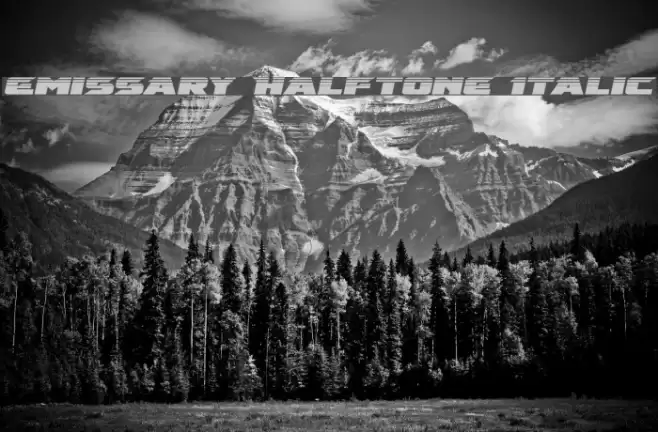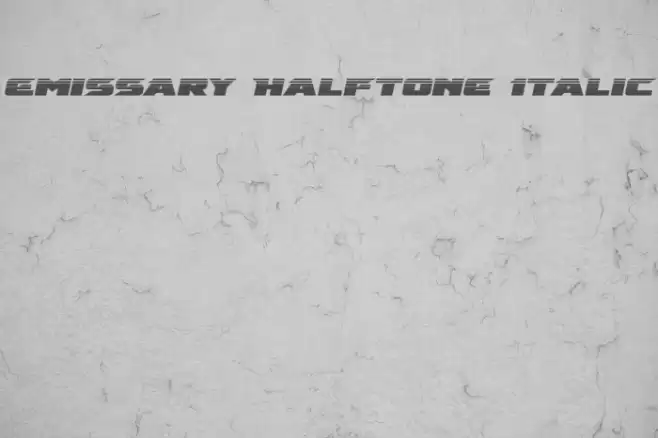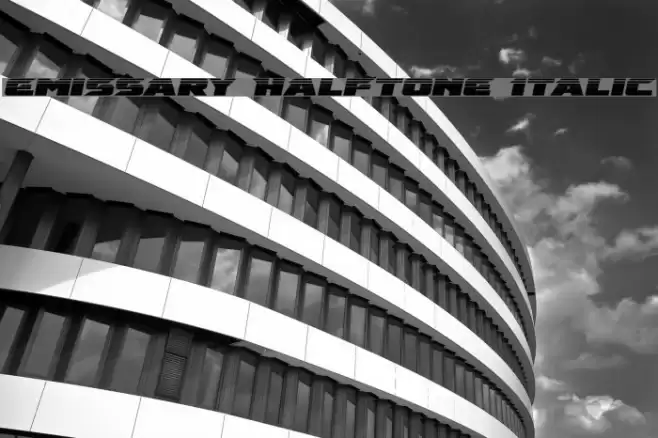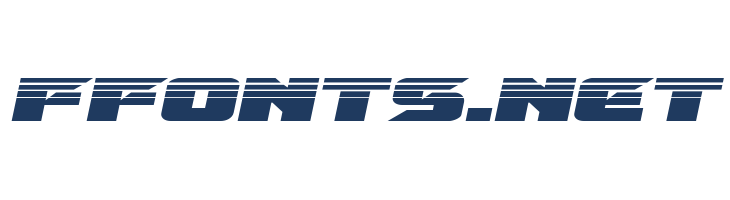
Emissary Halftone Italic Font
Emissary Halftone Italic Description
This font features a bold, dynamic style with a halftone effect that gives it a futuristic and edgy appearance. The characters are italicized, adding a sense of motion and speed. The design incorporates sharp angles and a distinct geometric structure, making it stand out. The uppercase and lowercase letters maintain a consistent style, while the numbers and special characters are designed to complement the overall aesthetic. This font is ideal for projects that require a modern and impactful look.
A bold, italicized font with a halftone effect and futuristic style from Uncategorized fonts.
- Proposed Projects: Ideal for sci-fi themed designs, video game titles, posters, and branding that requires a modern and dynamic look.
- Overall Style: Futuristic, Dynamic